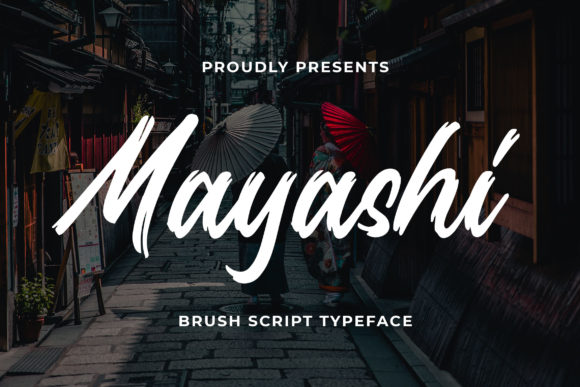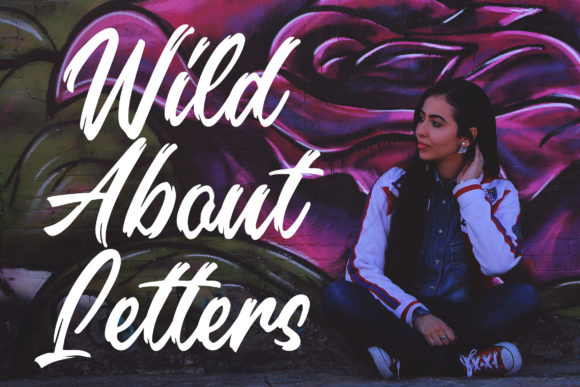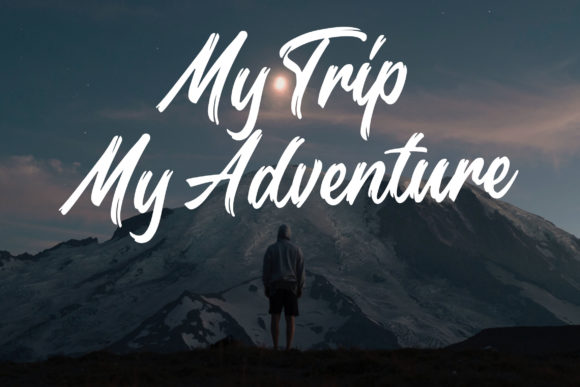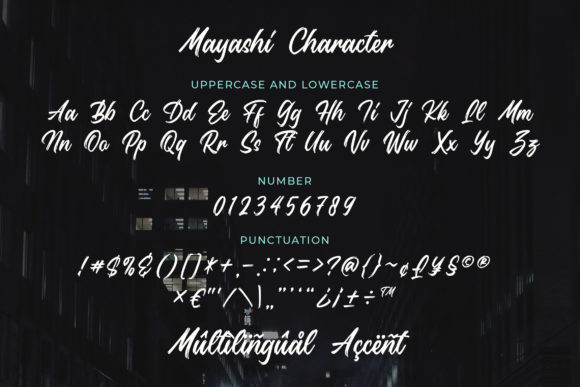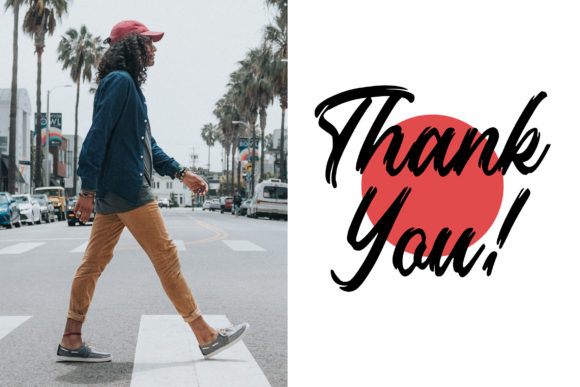
Mayashi Font
About Mayashi Font
Mayashi is a friendly and modern script font with a unique style. It will add a romantic touch to any crafting project!